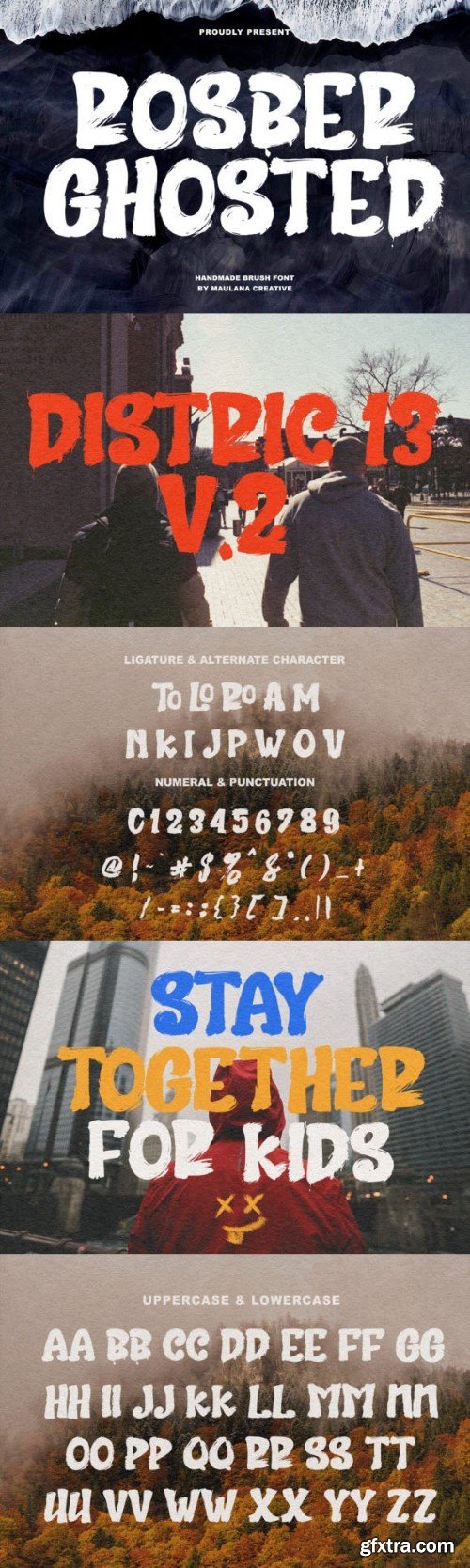
罗伯格斯字体
Rosber Ghosted is a cool and unique display font that weaves an ethereal quality into your designs. Its ghostly, rough letterforms create an intriguing and mysterious aesthetic. Ideal for projects demanding a distinctive and haunting vibe, Rosber Ghosted adds a visually captivating and otherworldly flair to your creative expressions.